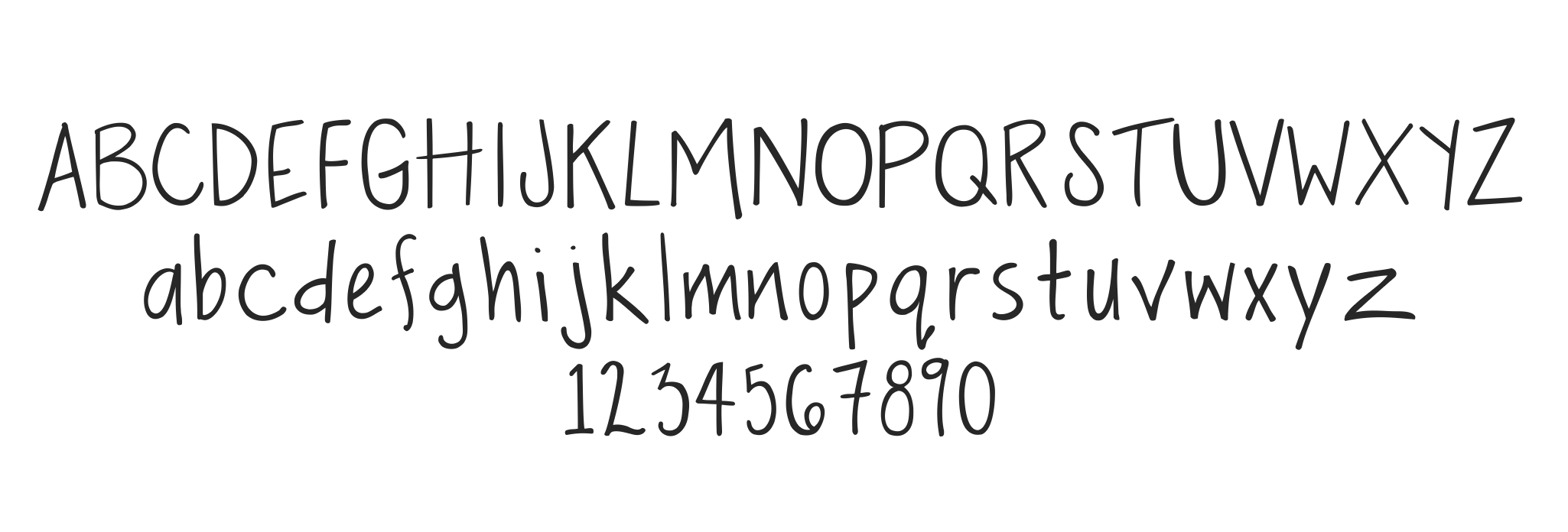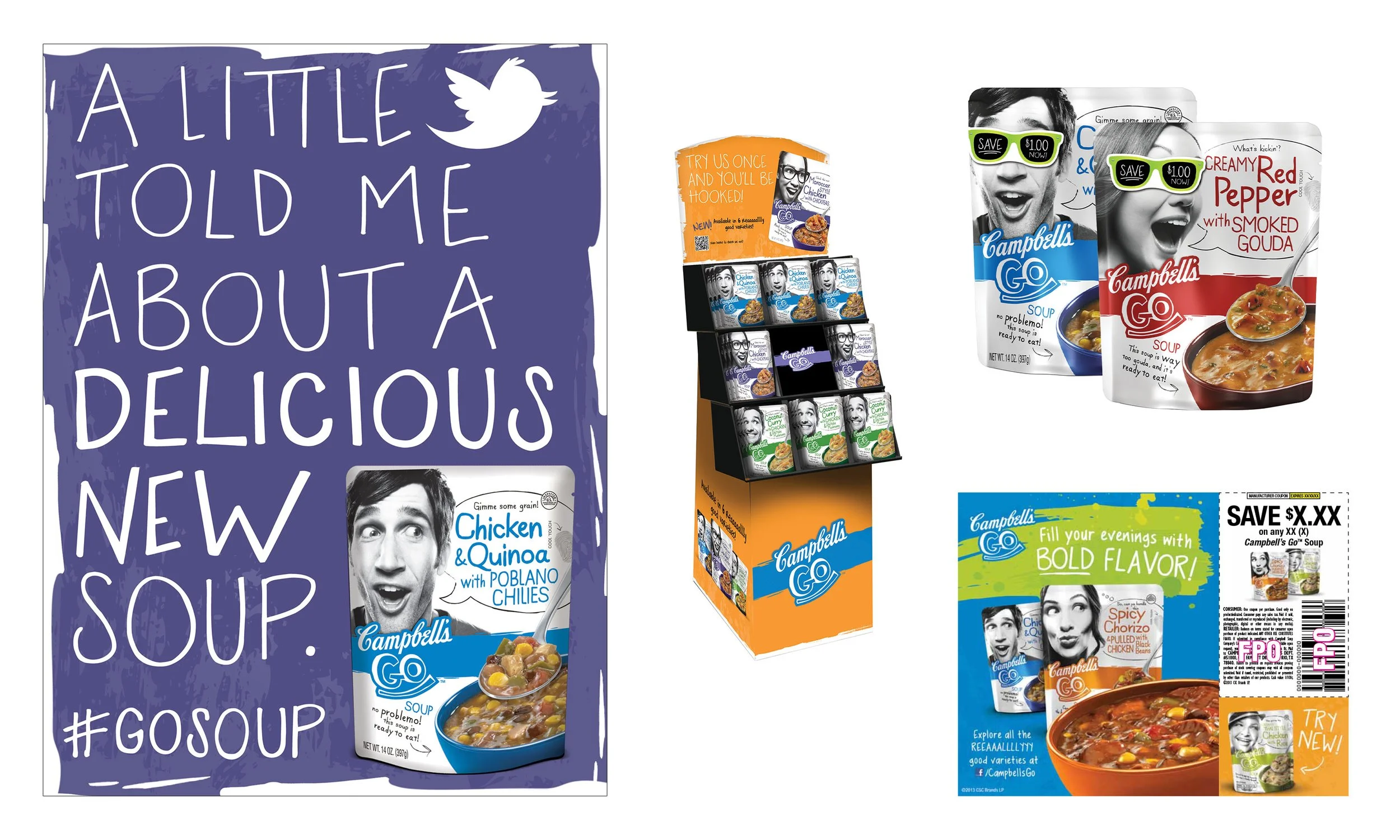
CAMPBELL’S
Working on shopper marketing for iconic Campbell's Soup brands gave me the opportunity to design for products people literally had in their kitchens every day. I created designs for brands like Prego, Pace Salsa, V8, and Swanson — everything from in-store displays and festival booths to core visuals and circulars. One of my favorite projects was working on the millennial-focused Campbell's GO Soup line, where I turned my own handwriting into a custom font that was used across all creative. Seeing my lettering show up in real campaigns out in the wild was such a fun (and slightly surreal) creative moment.
CAMPBELL’S GO SOUP IN-STORE MARKETING
CAMPBELL’S SLOW KETTLE STYLE SOUP BOOTH
NEW YORK CITY FOOD NETWORK FOOD + WINE FESTIVAL
CORE VISUAL EXPLORATORY WORK
PACE SALSA, V8 ENERGY + GOURMET BISQUES